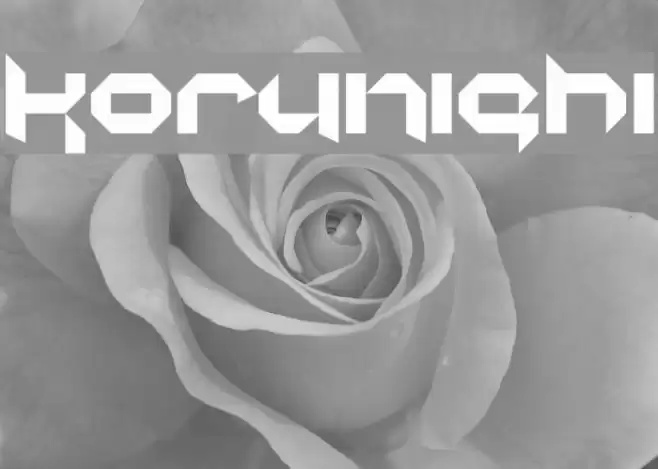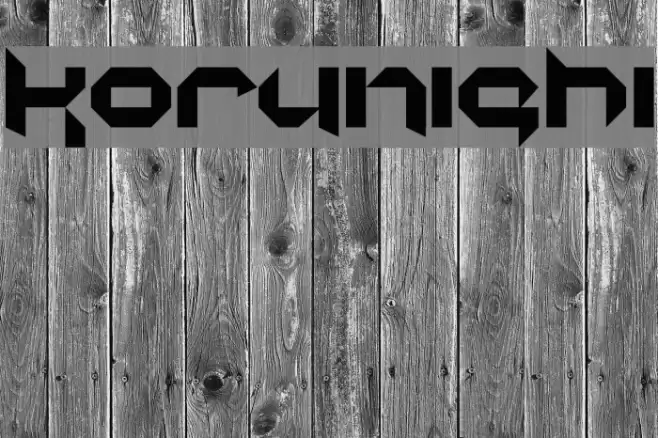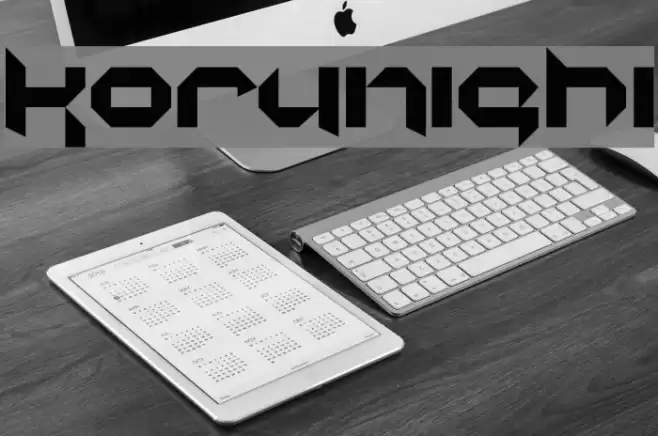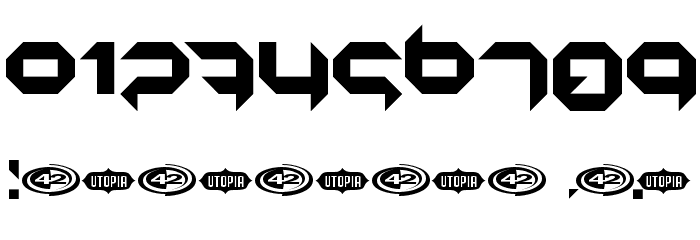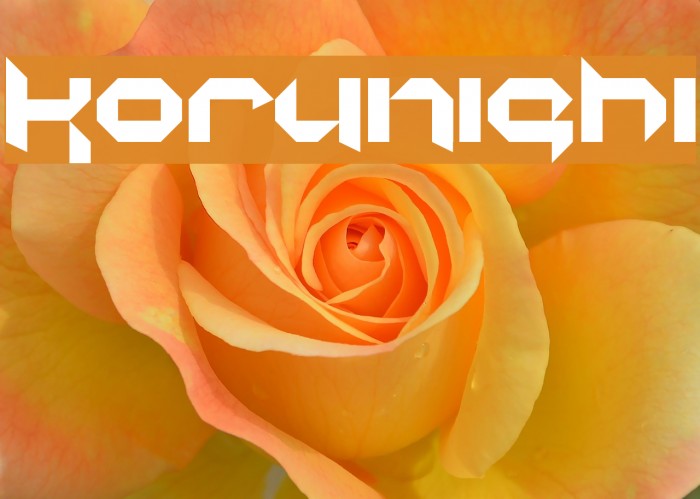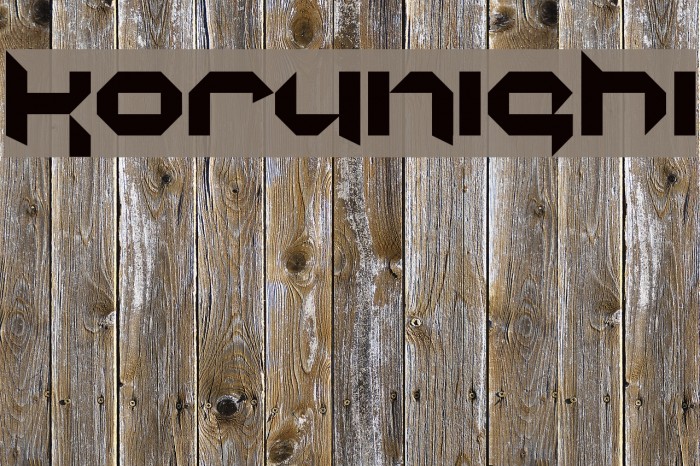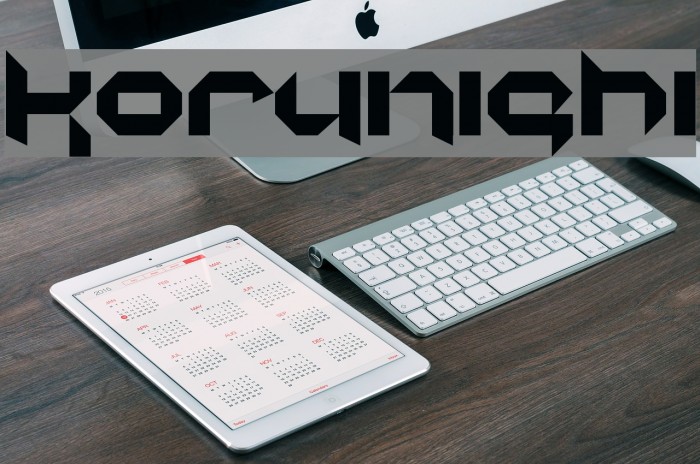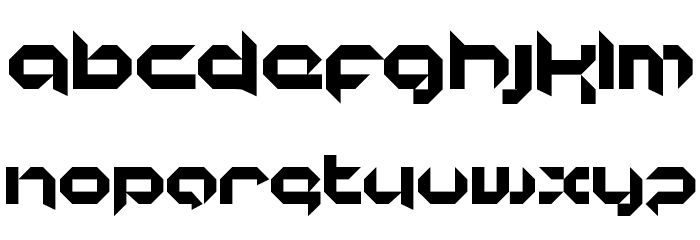
korunishi Font
korunishi Description
This font features a bold and geometric design, characterized by sharp angles and a futuristic aesthetic. Each character is constructed with a consistent angular motif, giving the typeface a cohesive and modern look. The uppercase and lowercase letters maintain a uniform style, with a strong emphasis on symmetry and structure. The numerals and special characters follow the same design principles, ensuring visual harmony across all elements. This font's distinct style makes it ideal for projects that require a contemporary and edgy appearance.
A bold, geometric font with a futuristic and angular design from Uncategorized fonts.
- Proposed Projects: Ideal for sci-fi themed designs, video game titles, tech branding, and modern posters.
- Overall Style: Futuristic